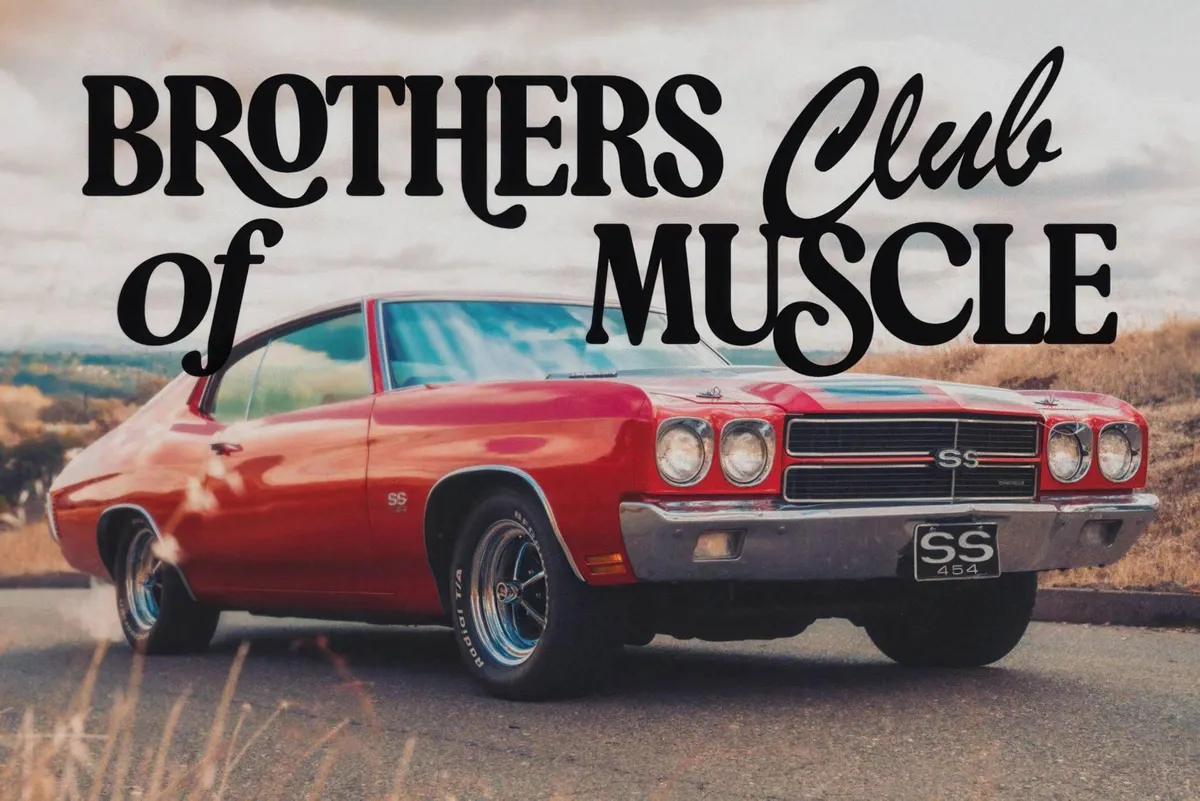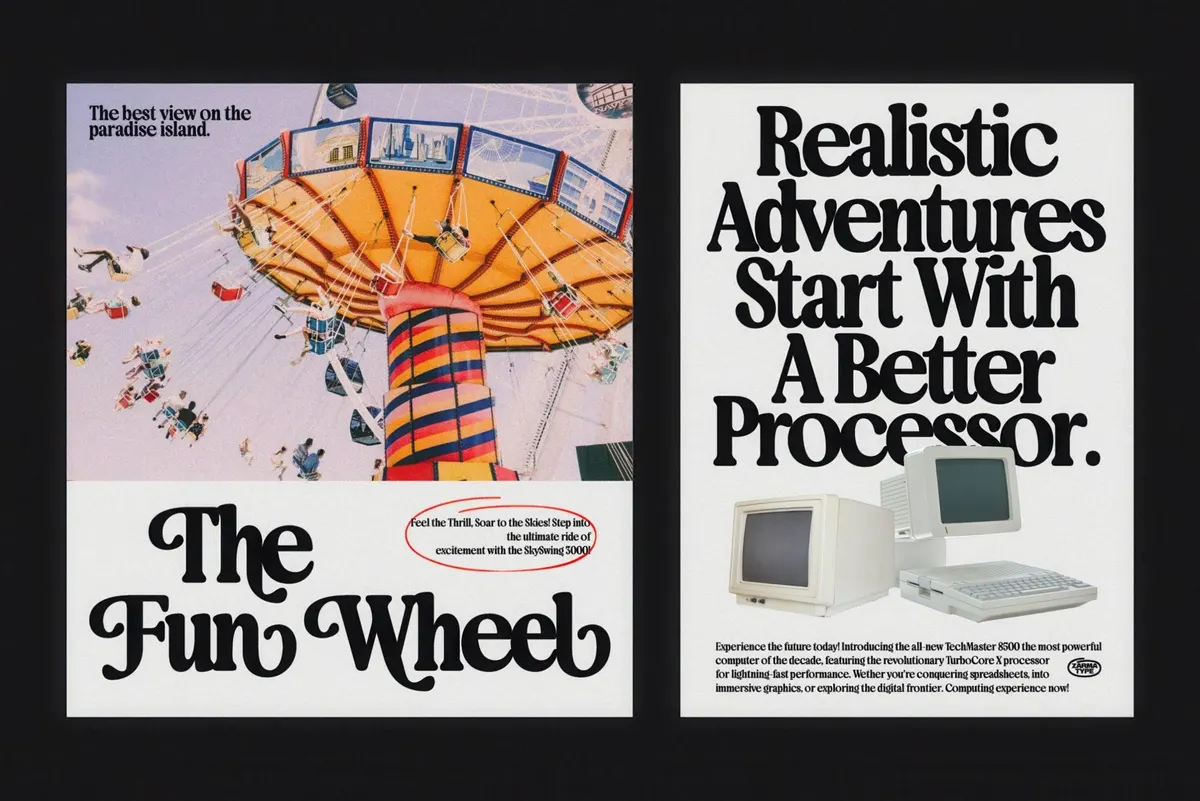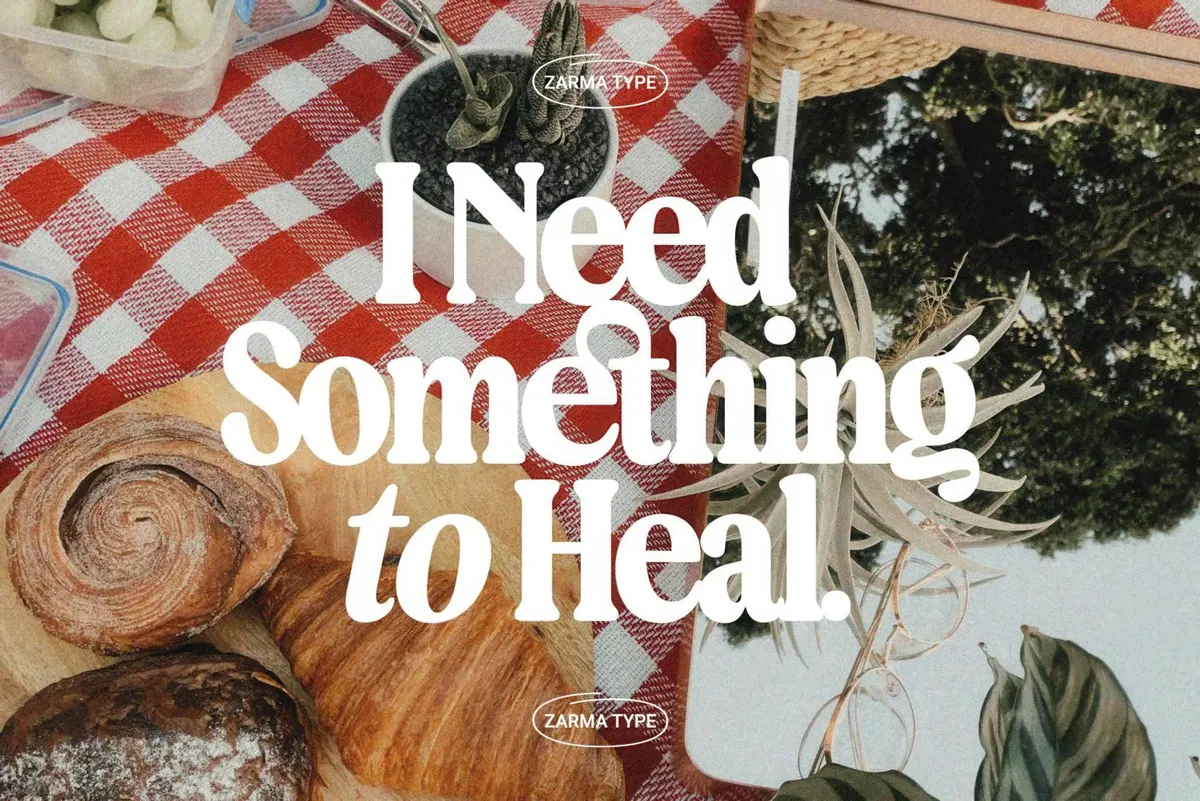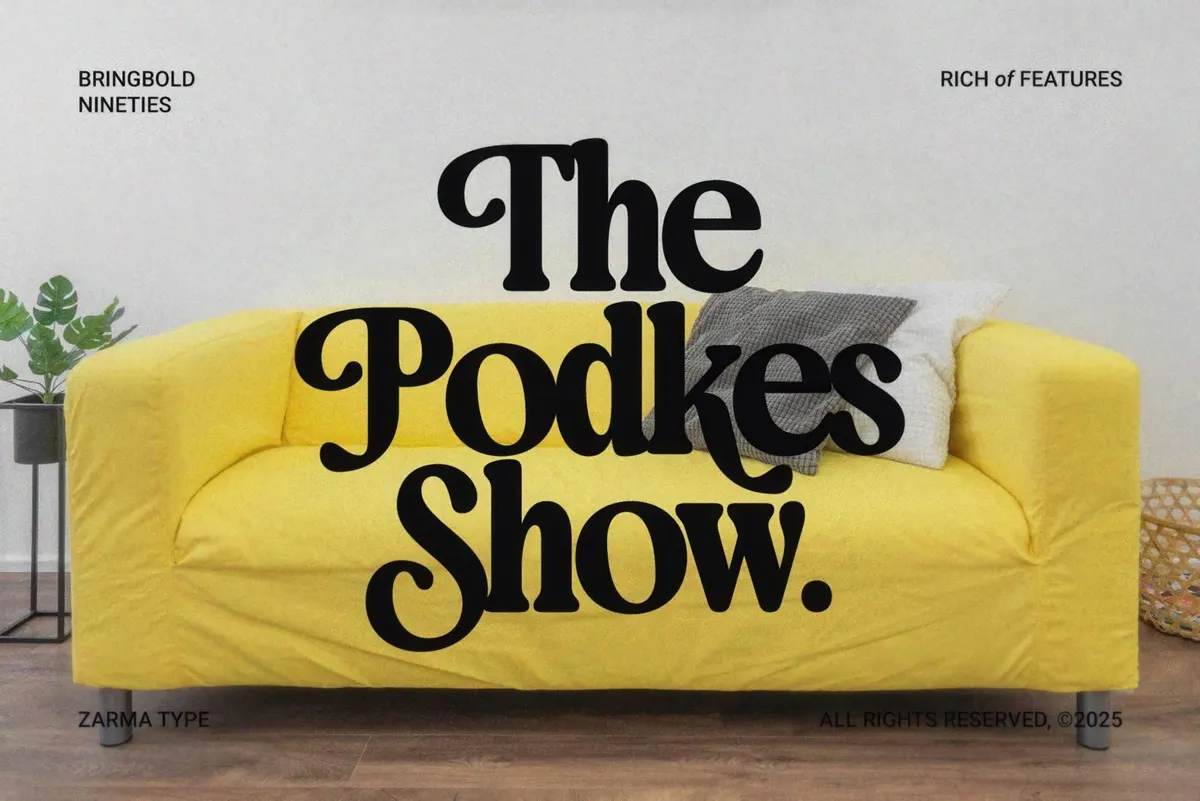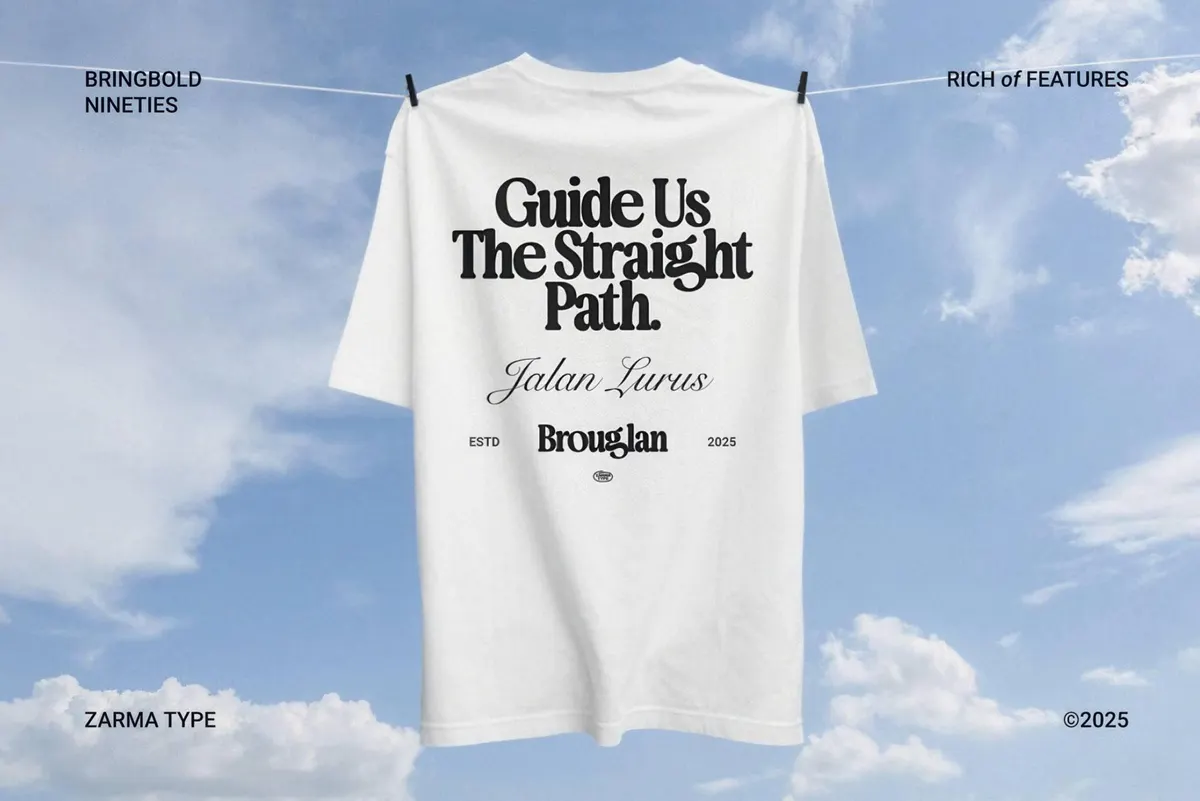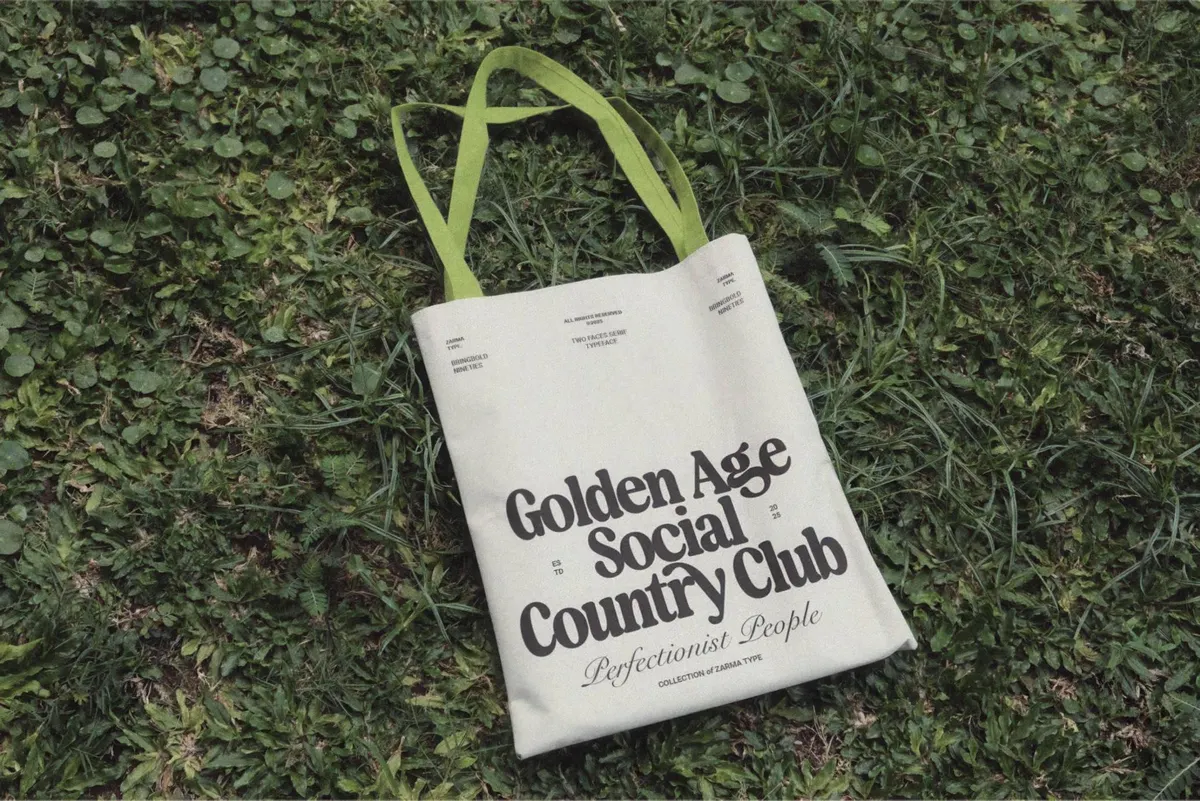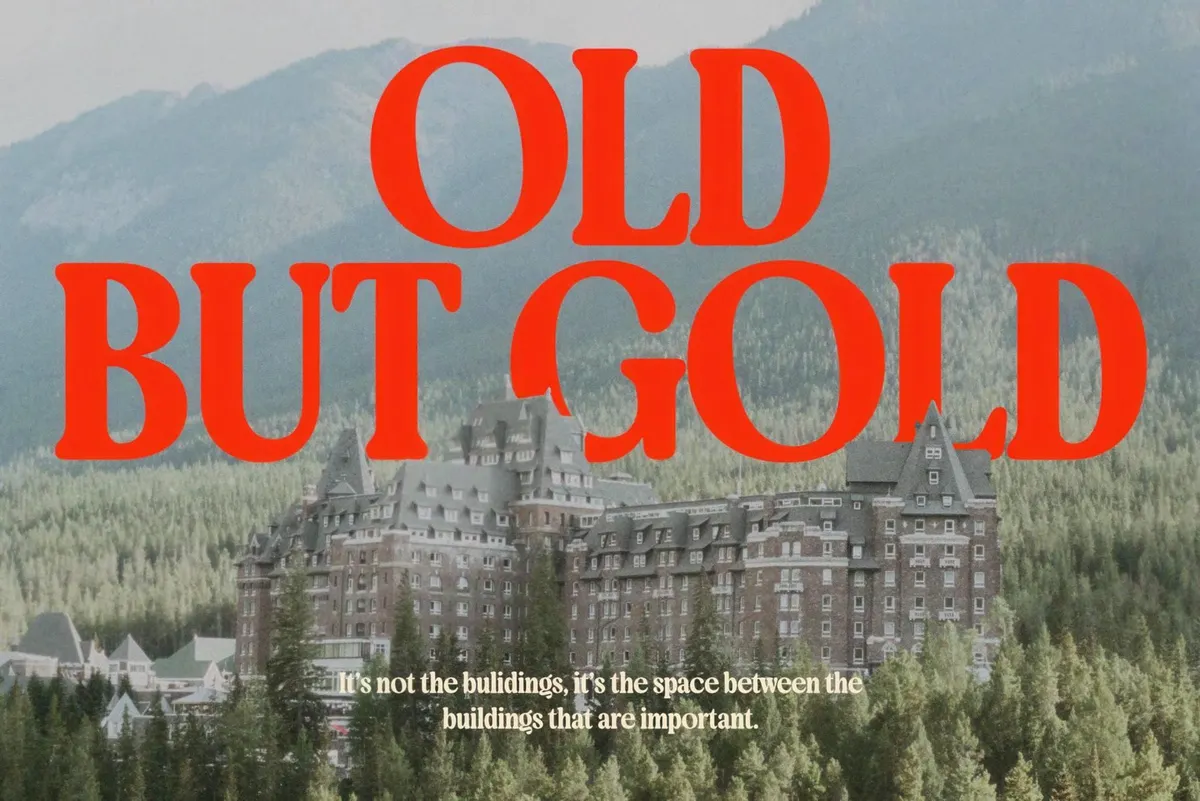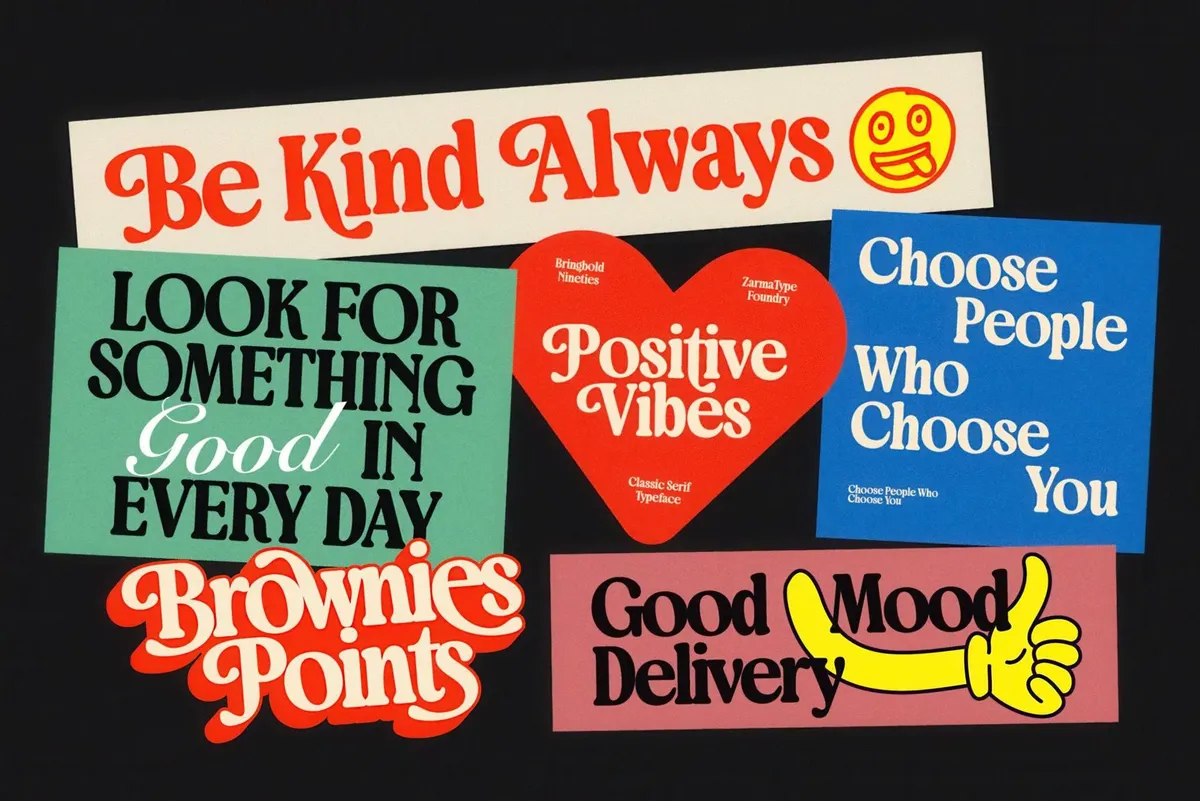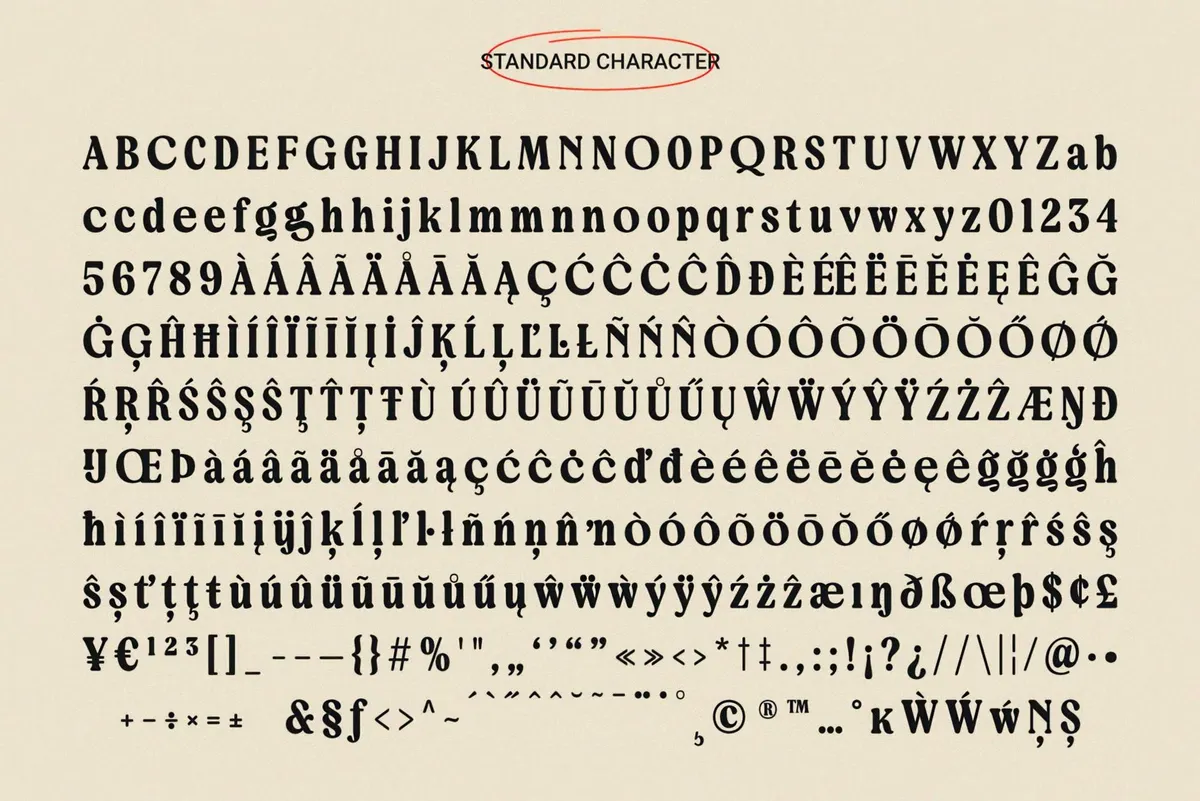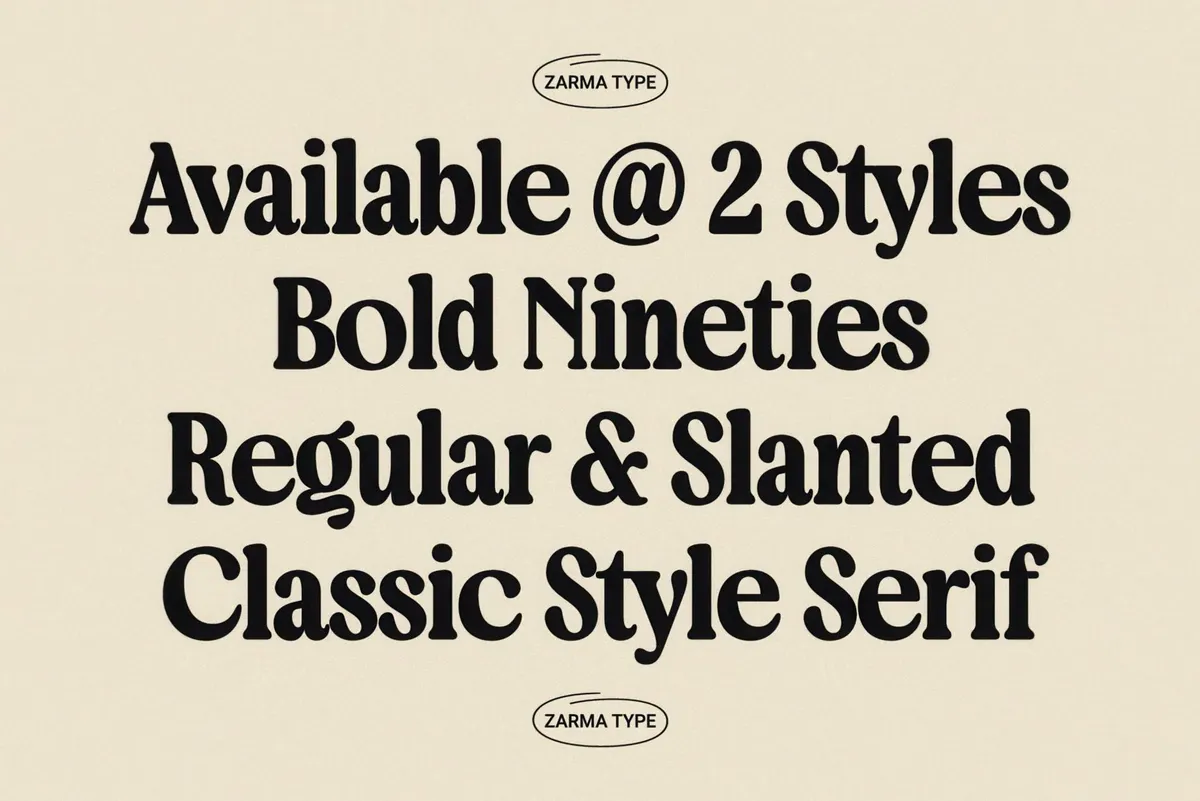
Bringbold Nineties — Serif Font
What happens when 90s attitude and timeless serif elegance get thrown into a blender? You get Bringbold Nineties, a retro-inspired font with a bold modern bite. Its chunky curves, crisp edges, and confident personality make it a go-to for designs that want to look classic without playing it safe.
This typeface comes in two versatile styles — Regular and Slanted — and is packed with OpenType goodies like stylistic alternates, ligatures, and swashes that let you go full-on expressive or keep it subtly nostalgic. It also has extensive multilingual support. With 544 glyphs and PUA encoding, Bringbold Nineties is built for branding, editorial statements, vintage packaging, posters, and just about anything that needs a hit of typographic swagger.